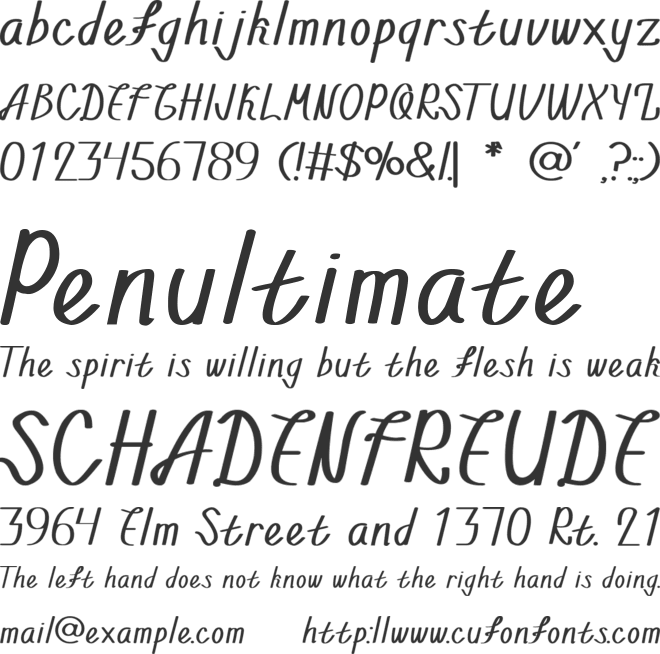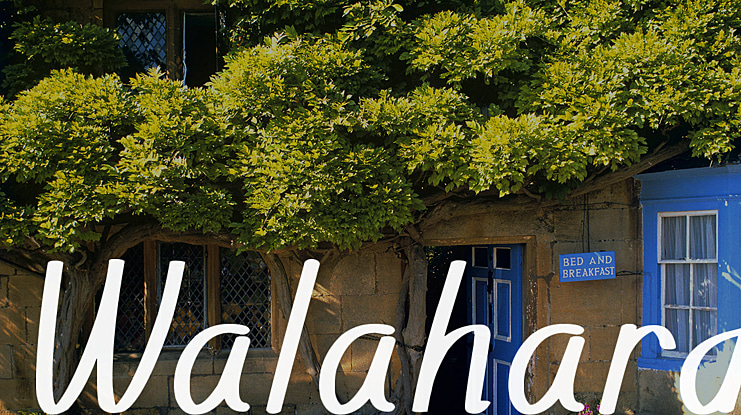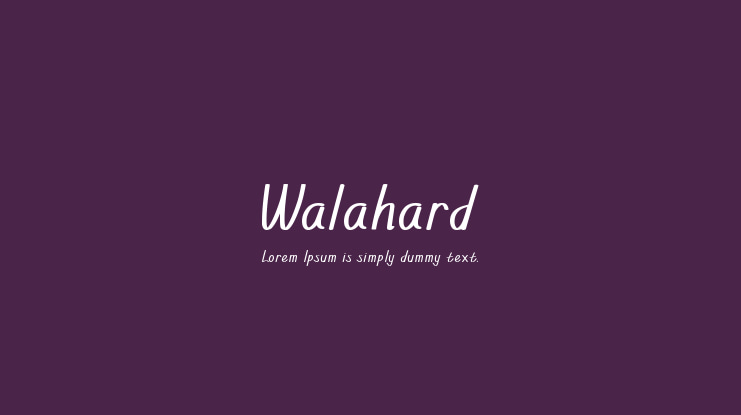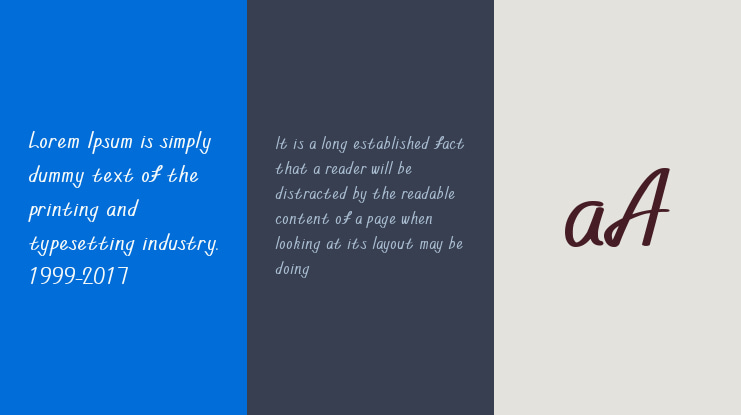
Walahard Font
Introducing Walahard, stylish handwriting with a modern style. This beautiful font offers your personal touch to your latest art project with an elegant, classy and modern look. Ready to use for projects, texts, letters, or whatever you want!